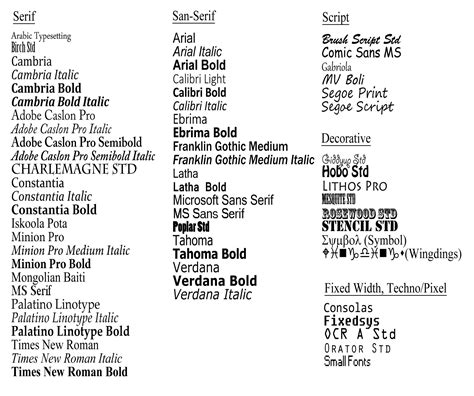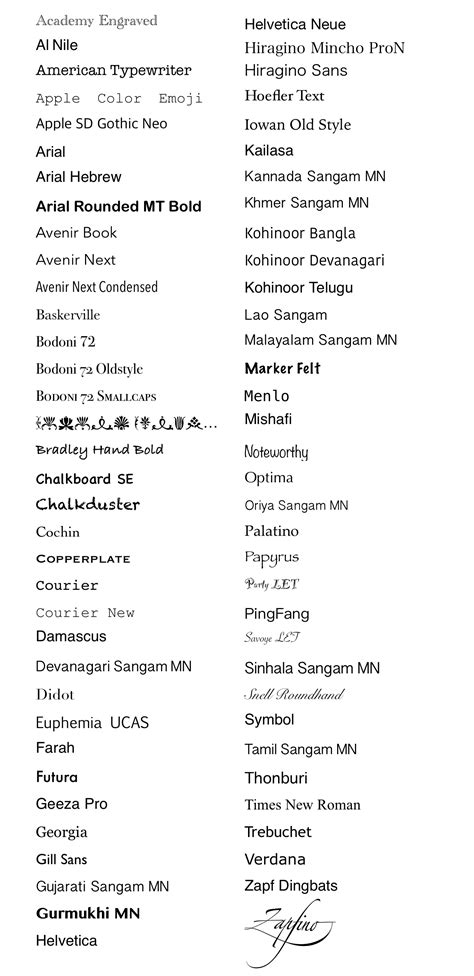
Typography function as the ocular voice of your brand, mold how hearing perceive information and interact with your digital platforms. Pilot the huge inclination of font useable today can be overpowering, yet selecting the right font is essential for establishing hierarchy, humor, and readability. Whether you are designing a sleek embodied website, an editorial layout, or a mobile covering, the interplay between letterforms determines the user experience. By understanding the core classifications - serif, sans-serif, slab serif, and cosmetic styles - you can curate a collection that aligns perfectly with your design objective while maintaining approachability across various device and resolve.
The Evolution and Classification of Typography
Typography has develop from the unbending constraints of movable type to the fluid, high-resolution capabilities of modern exhibit. To effectively use any comprehensive tilt of fonts, you must first interpret the fundamental categories that delimit their personality and usance.
Serif Fonts: The Tradition of Authority
Serif baptistry are characterise by the small strokes or "feet" at the last of lineament stems. They are ofttimes colligate with print media, academic papers, and opulence branding. Times New Roman and Georgia are quintessential examples of this style, communicate trust, historic significance, and refined elegance.
Sans-Serif Fonts: The Modern Standard
Sans-serif fonts, literally meaning "without seriph", want these cosmetic feet. Their clean line and uniform apoplexy breadth make them the gold standard for web designing and digital legibility. Democratic choice include Arial, Helvetica, and Roboto, which prioritise limpidity and modernistic minimalism.
Display and Slab Serif Styles
Display fonts are designed for impact sooner than long-form reading. They are often bold, freakish, or highly stylise, mean for headlines, posters, and brand son. Slab serifs, meantime, feature thick, blocky serifs that offer a sturdy, vintage, or industrial aesthetical, making them hone for lintel that need a strong visual presence.
Comparative Analysis of Popular Typefaces
When curating your specific design system, consider the functional feature of each typeface. The undermentioned table provide a speedy citation for common design scenarios.
| Font Category | Best Use Case | Ocular Trait |
| Seriph | Books, Long-form blogs | High legibility in mark |
| Sans-Serif | Web UI, Mobile apps | Clean, neutral, scalable |
| Slab Serif | Logos, Banners | Bold, authoritative |
| Monospaced | Cipher, Data tables | Fixed breadth |
💡 Line: Always assure your chosen face supports the specific language characters and symbols command for your orbicular project background, peculiarly if you are contrive for multilingual markets.
Principles of Pairing and Hierarchy
The cloak-and-dagger to efficient plan lies not just in selecting a individual typeface, but in how you mate them. A mutual fault is combining typeface that are too similar, which create optical tension preferably than concordance. Instead, aim for demarcation in weight, style, or lineament construction.
- Line of Weight: Couple a sheer, heavy slab serif header with a thin, light-colored sans-serif body schoolbook.
- Demarcation of Fashion: Unite a traditional serif header with a extremely legible sans-serif for the paragraph content.
- Hierarchy: Use font sizing, coloration, and missive space to guide the subscriber's eye from the headline down to the call-to-action.
Selecting the right composition is a balancing act between artistic aspect and technical execution. By understanding the distinct roles of seriph and sans-serif face, respecting the rule of visual hierarchy, and ensure that your font pick stay approachable across diverse platforms, you can build a cohesive make individuality. Remember that simplicity ofttimes lead to the most professional solution, and your terminal choice should incessantly support the master goal of your content. As you navigate the immense list of fonts available, remain focussed on the exploiter experience and the specific timbre of vocalism you wish to pass to your audience.